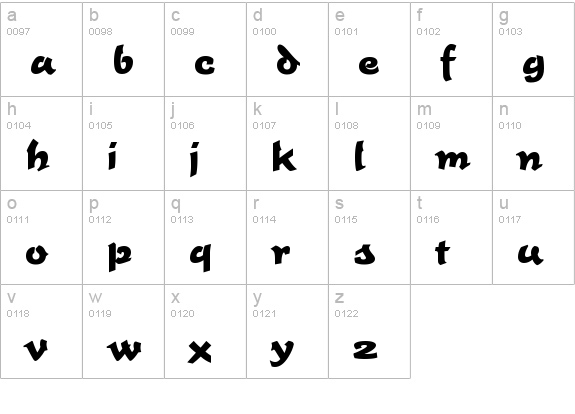
TiogaScript-Bold-Regular Font Details
TiogaScript-Bold-Regular is a strong, high-contrast variant in the TiogaScript typeface family \xE2\x80\x94 well suited to headlines, attention-grabbing titles, and strong calls-to-action.
TiogaScript-Bold-Regular is a bold and dynamic font that exudes confidence and sophistication. With its strong, yet elegant letterforms, this typeface is perfect for creating impactful designs that demand attention. The bold weight adds a touch of boldness and flair, making it ideal for headlines, titles, and other display applications. What sets TiogaScript-Bold-Regular apart is that it is free to download at FontsMarket.com. This means that you can easily access this versatile font without any cost, making it a valuable resource for designers, creatives, and anyone looking to elevate their projects with a touch of style and professionalism. Download TiogaScript-Bold-Regular today and unleash its bold charm in your next design project.